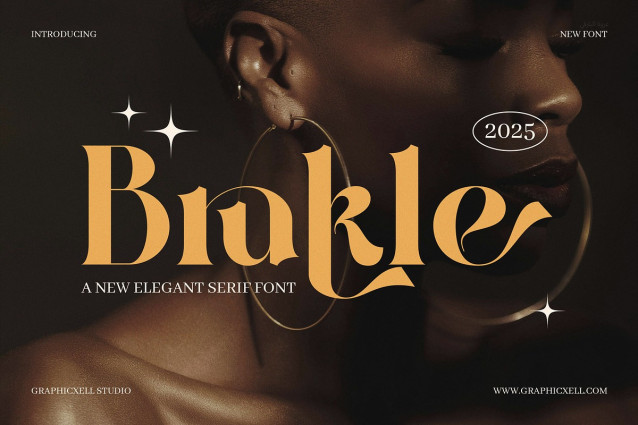
Brukle Font
Brukle Font—a stylish serif typeface that adds timeless grace to your design. This font blends classic charm with modern clarity, making it perfect for editorial layouts, branding, invitations, and headlines alike. Its smooth strokes and refined serifs enhance readability, while still delivering that elegant, vintage feel.